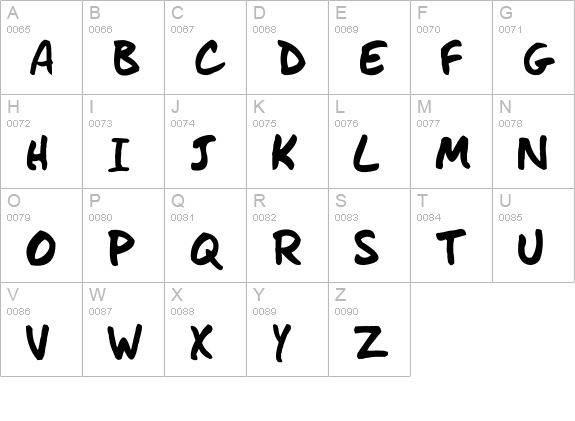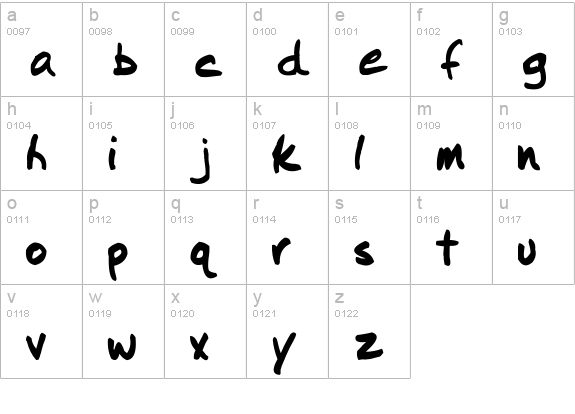
I Did This! Font Details
Introducing the mesmerizing I Did This! font, a captivating typographic masterpiece that is guaranteed to make a lasting impression on any design project. This unique font is an exquisite blend of elegance and playfulness, perfectly suited for a wide range of creative endeavors. With its bold and eye-catching letterforms, I Did This! font effortlessly captures attention and adds a touch of sophistication to any design. Whether you're working on branding, advertising, packaging, or any other creative project, this font's versatility is sure to shine through. One of the most remarkable aspects of I Did This! font is that it is freely available to download at FontsMarket.com. This means you can easily access this incredible typeface without any hassle or cost, making it an invaluable addition to your font library. Not only does I Did This! font offer exceptional visual appeal, but it also boasts excellent legibility, ensuring that your message is conveyed clearly and effectively. Its well-crafted letterforms, meticulous spacing, and overall attention to detail make it a joy to work with. Whether you're a professional designer or an enthusiastic hobbyist, I Did This! font offers endless possibilities for your creative endeavors. Its bold and expressive nature allows you to experiment and push boundaries, enabling you to bring your vision to life with confidence and style. So why wait? Embrace the beauty of I Did This! font and elevate your designs to new heights. Download this extraordinary typeface for free at FontsMarket.com and unlock a world of endless creativity.